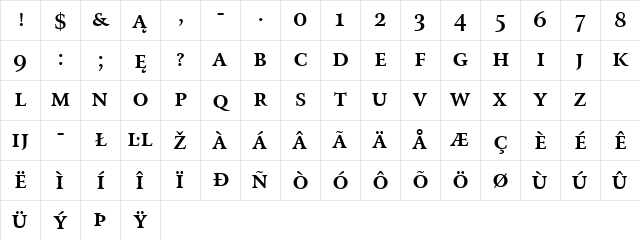
Arrus SmCap BT Bold Small Cap
Style: Bold Small Cap
Arrus SmCap BT Family
Arrus SmCap BT Bold Small Cap
Design Context for Arrus SmCap BT
Arrus SmCap BT is a composed and adaptable typeface that performs quietly and consistently across a wide range of design contexts. Its bold stroke weight gives it real presence on the page.